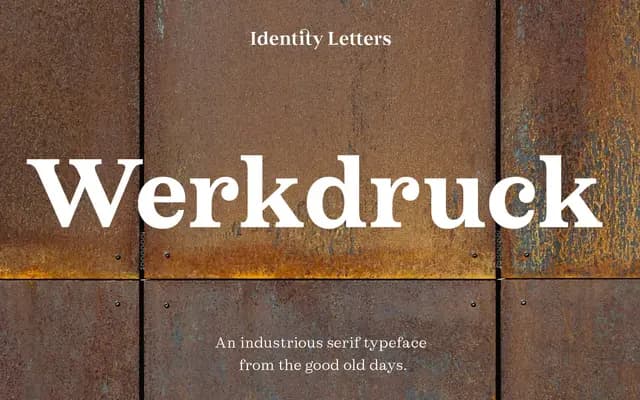
A nine-weight transitional serif drawing on rational and Didone traditions, optimised for legibility at small sizes on high-resolution screens.
Werkdruck threads together rational and transitional type design references, adopting the vertical stress and symmetrical construction of a Didone while softening the stroke contrast and retaining bracketed serifs. Nine weights run from Thin to Heavy, each with true italics, and alternate glyph options include single-storey and double-storey variants for a and g. Its 911 glyphs per style cover extended Latin and include small capitals, oldstyle figures and a full suite of superscripts and subscripts.
The foundry describes it as threading together rational and transitional type design sources, with vertical stress and symmetrical construction akin to a Didone but with reduced stroke contrast and bracketed serifs, placing it firmly in transitional territory.